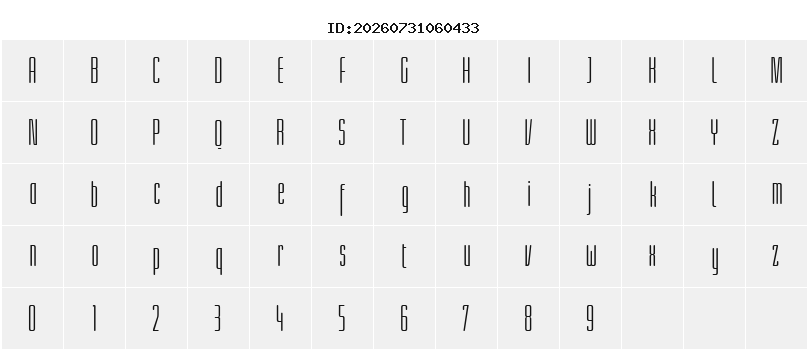
• Designer: Bernd Pfannkuchen
About LTLichtwerk.ttf
LTLichtwerk.ttf is a modern, elegant sans-serif font designed for ultimate readability and visual harmony. Perfect for branding, headlines, web design, and print materials.